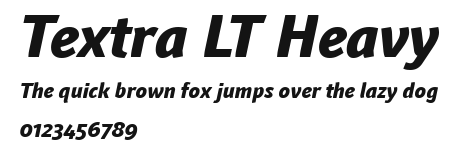
• Font Name: Textra LT Heavy
• Full Font Name: Textra LT Heavy Italic
• Designer: Jochen Schuss
• Manufacturer: Linotype Library GmbH
About Textra LT Heavy.ttf
Textra LT Heavy.ttf is a modern, elegant sans-serif font designed for ultimate readability and visual harmony. Perfect for branding, headlines, web design, and print materials.